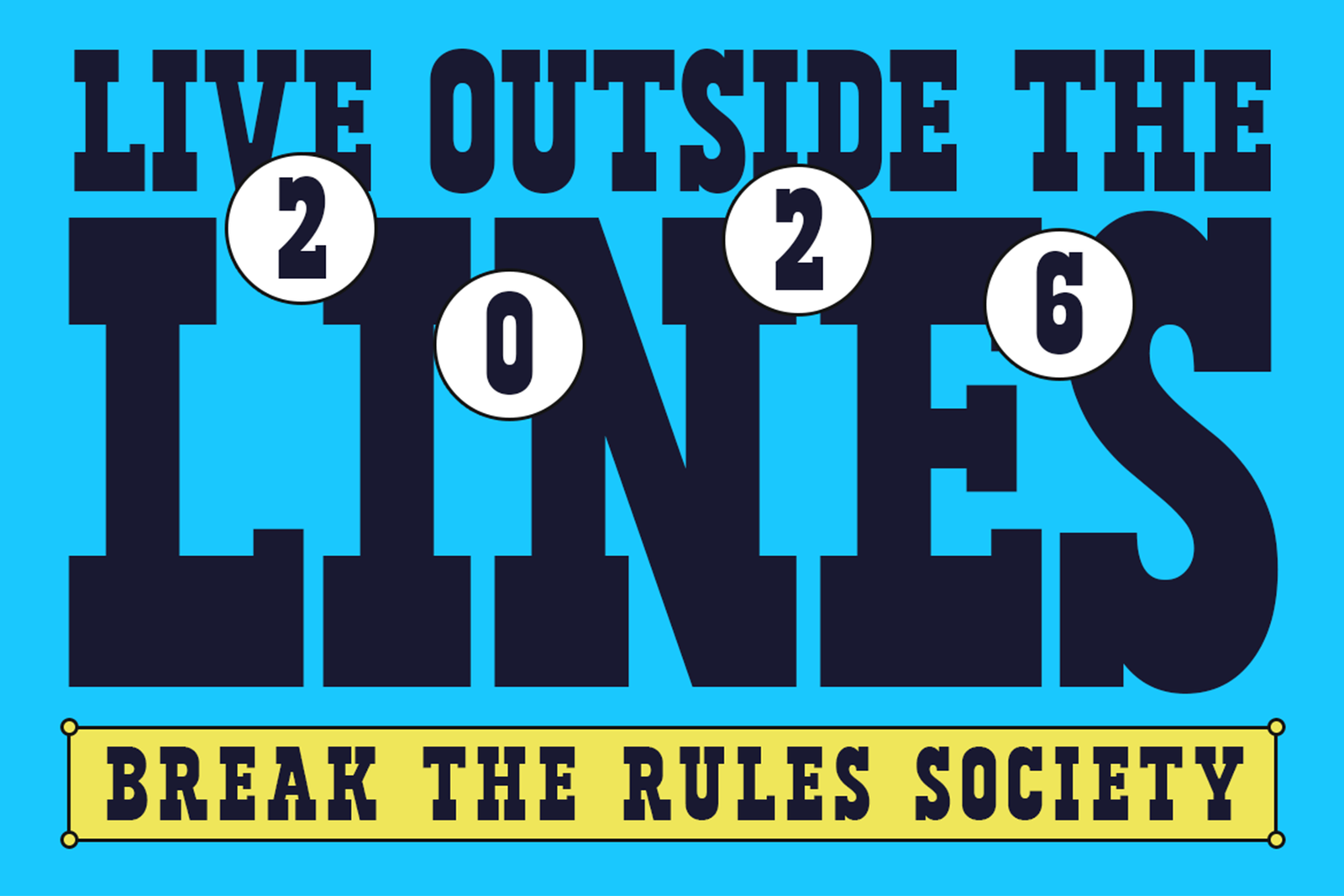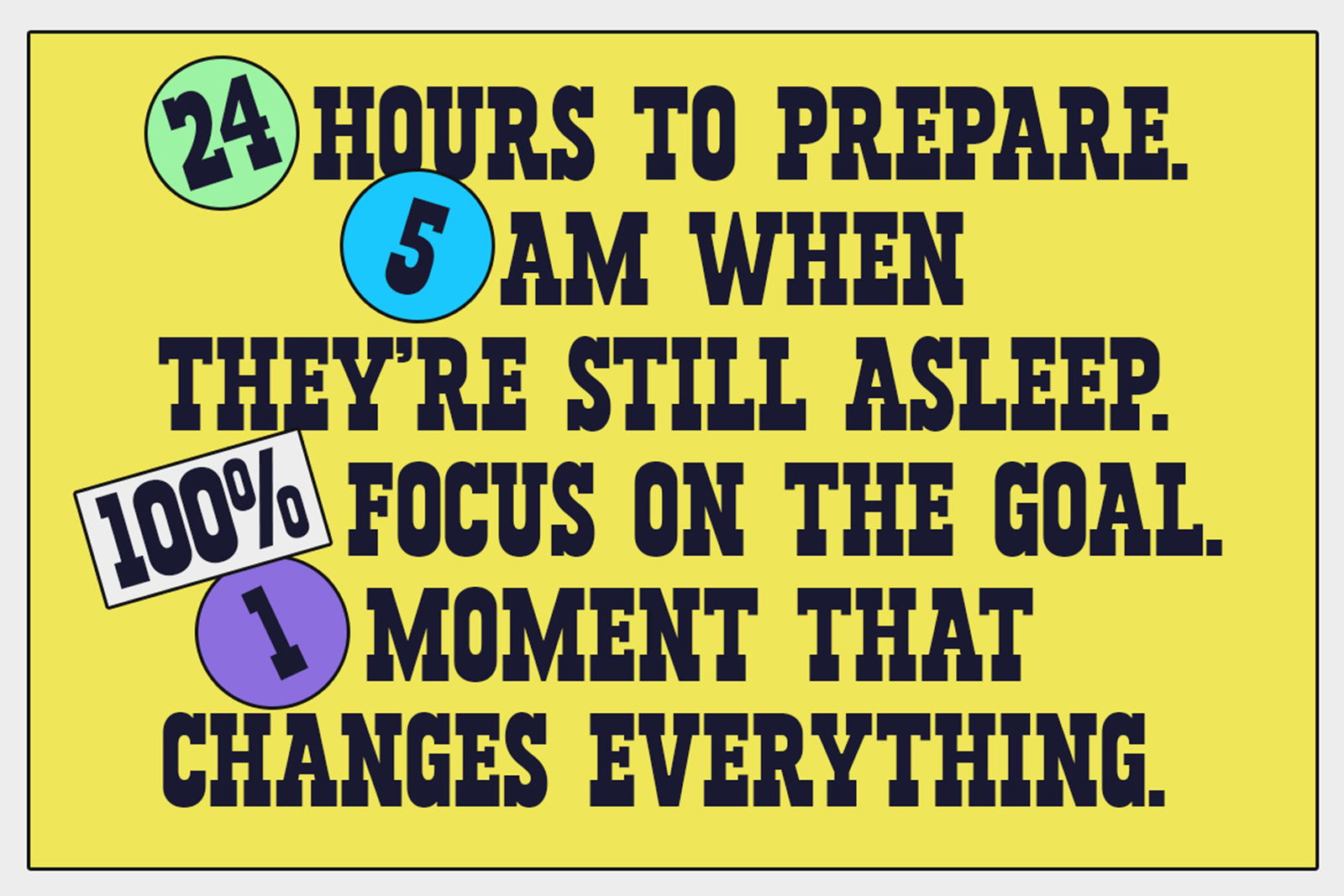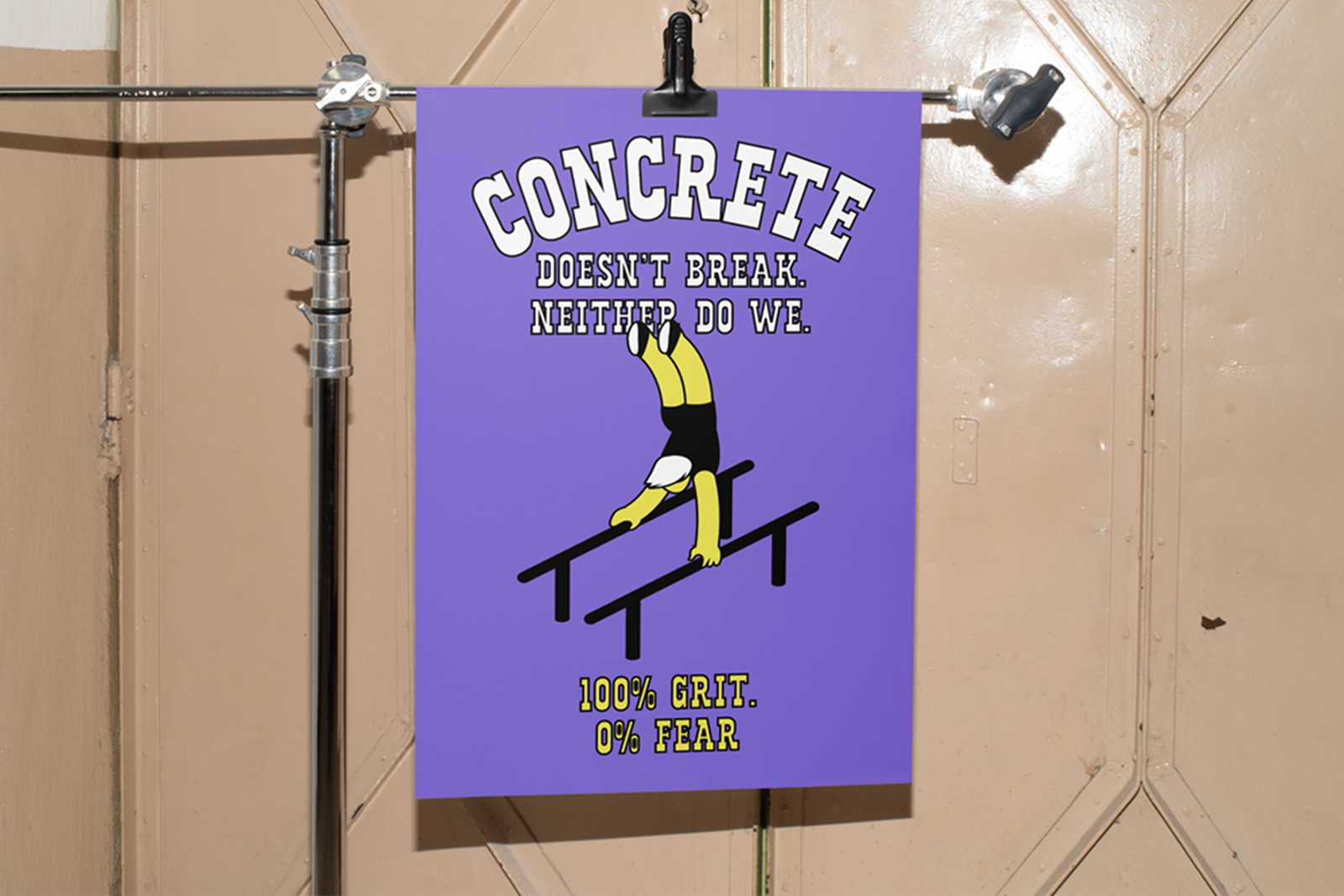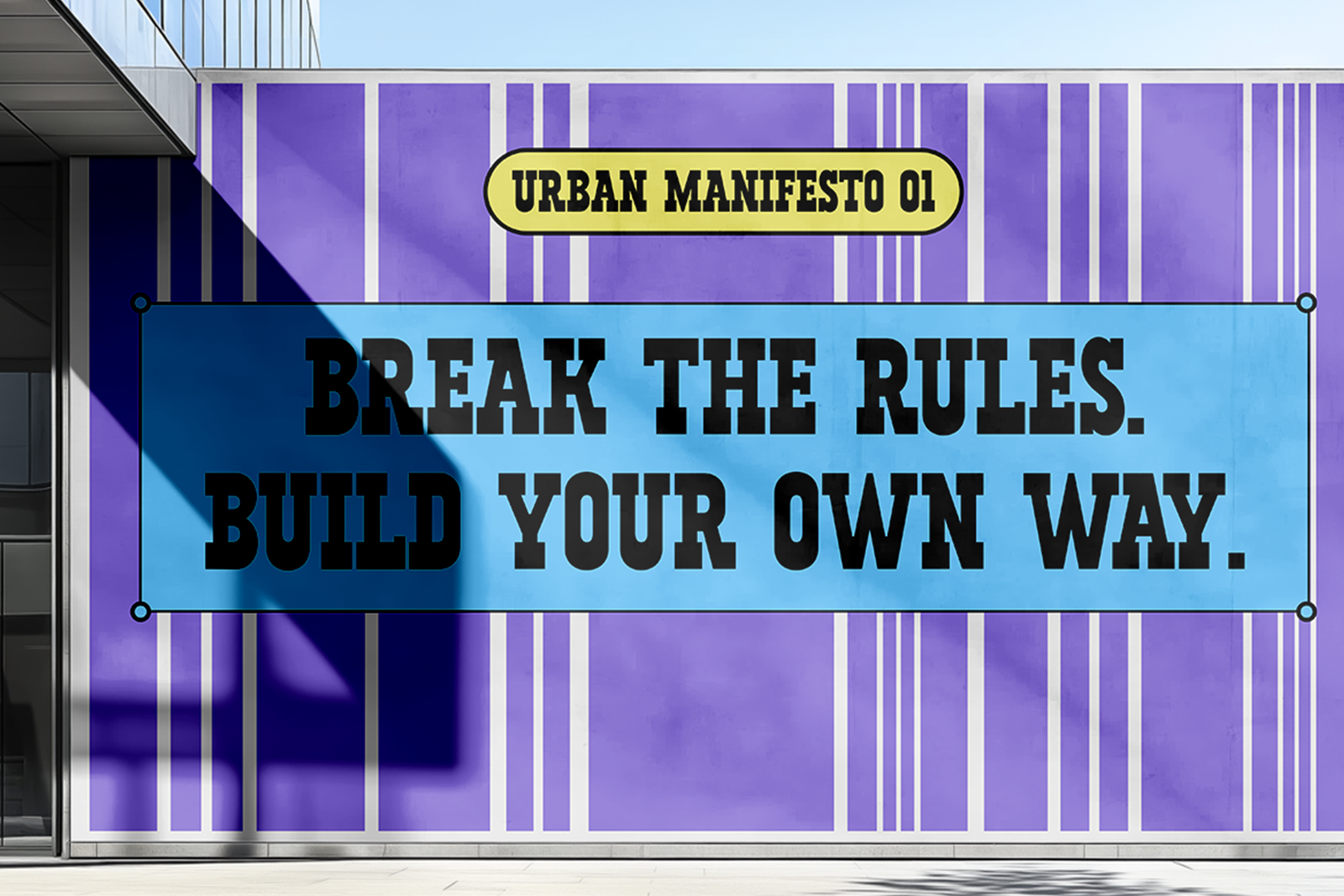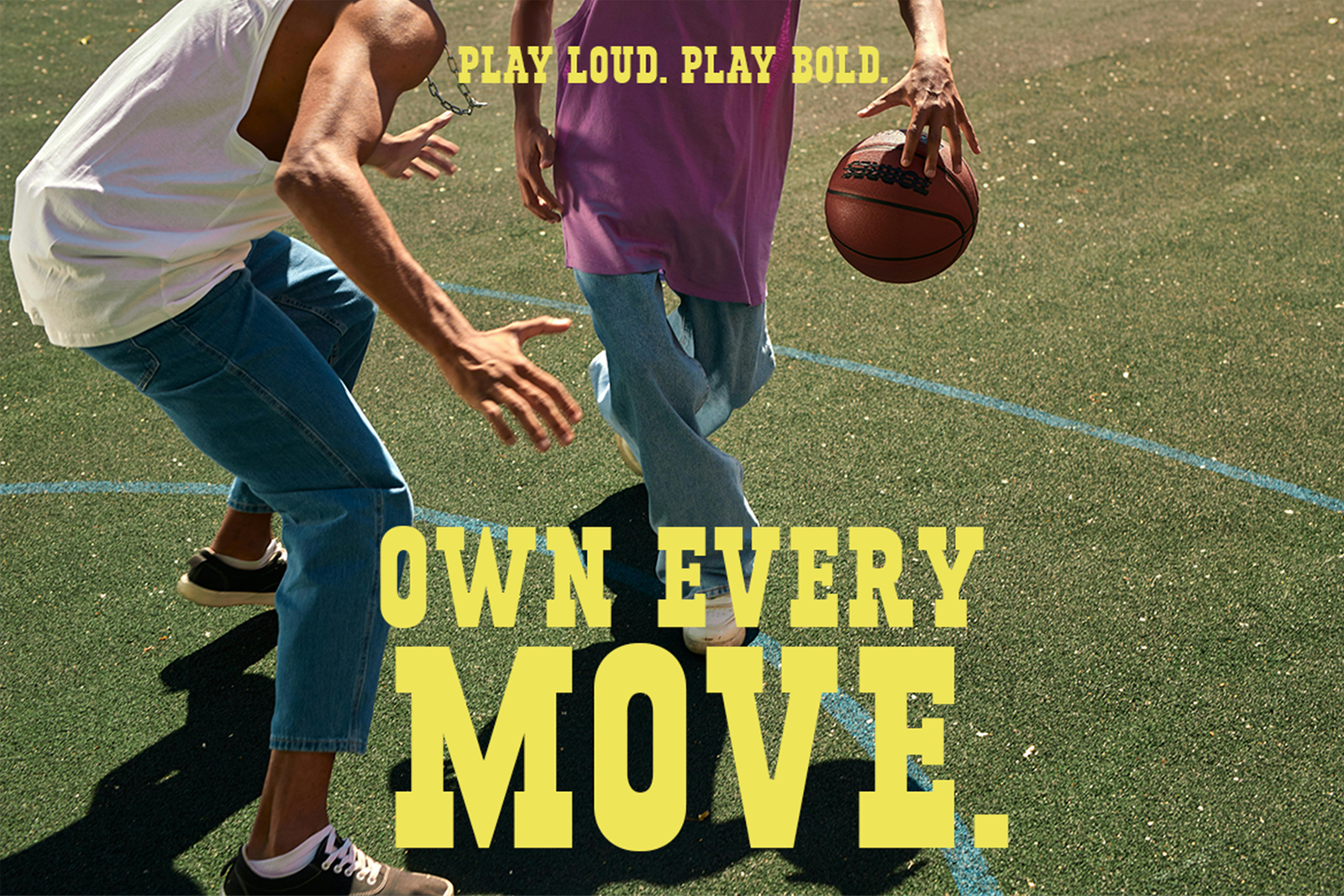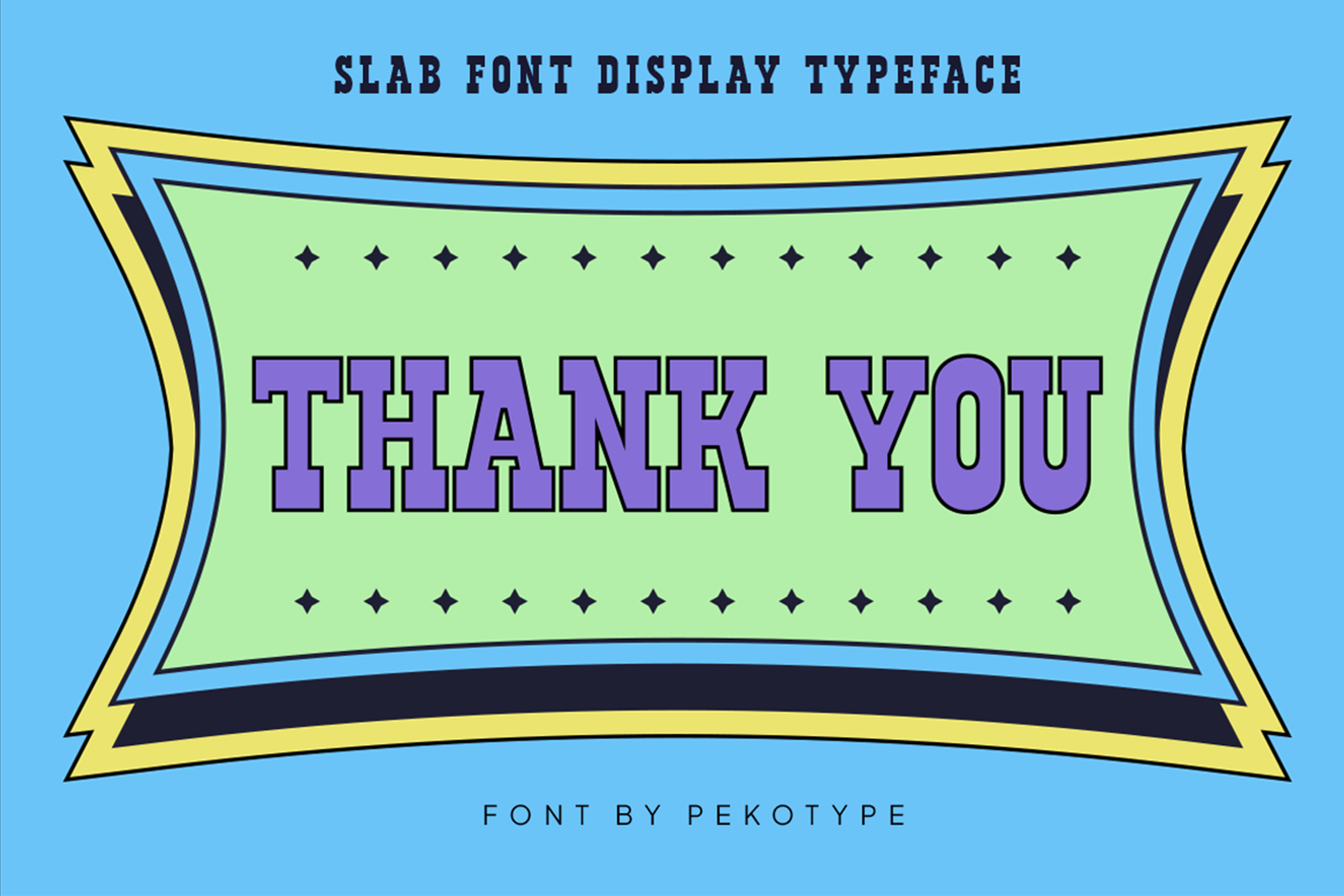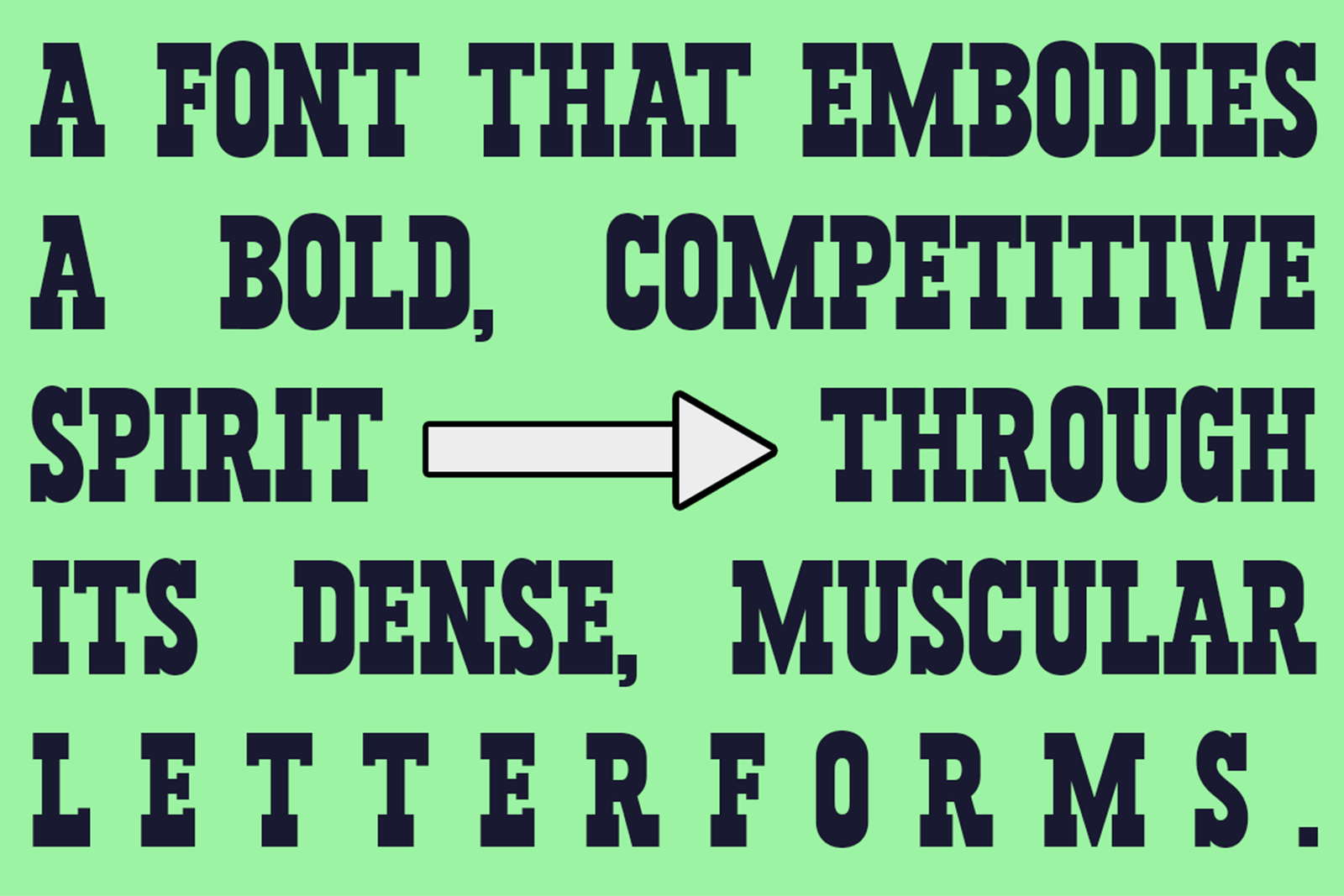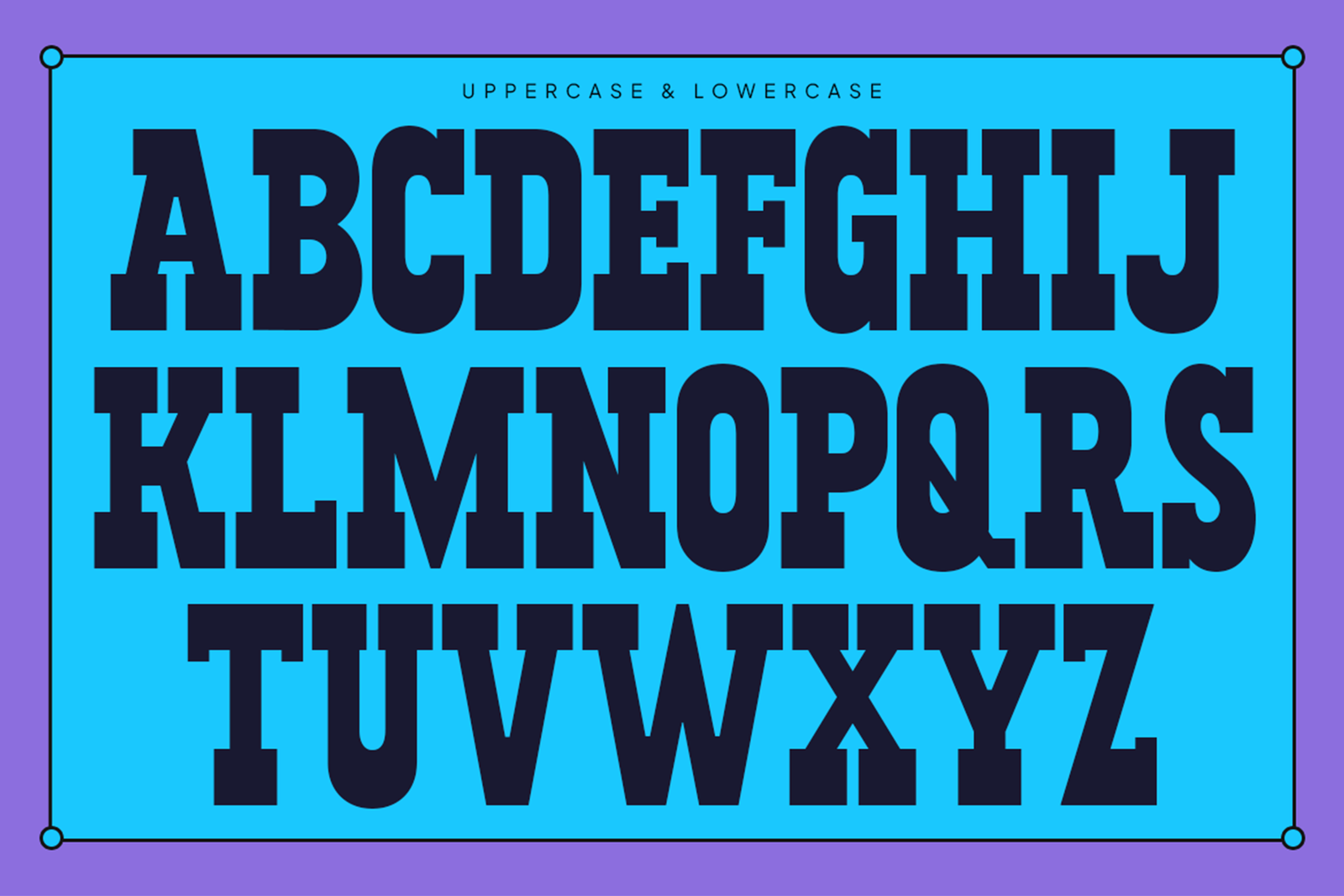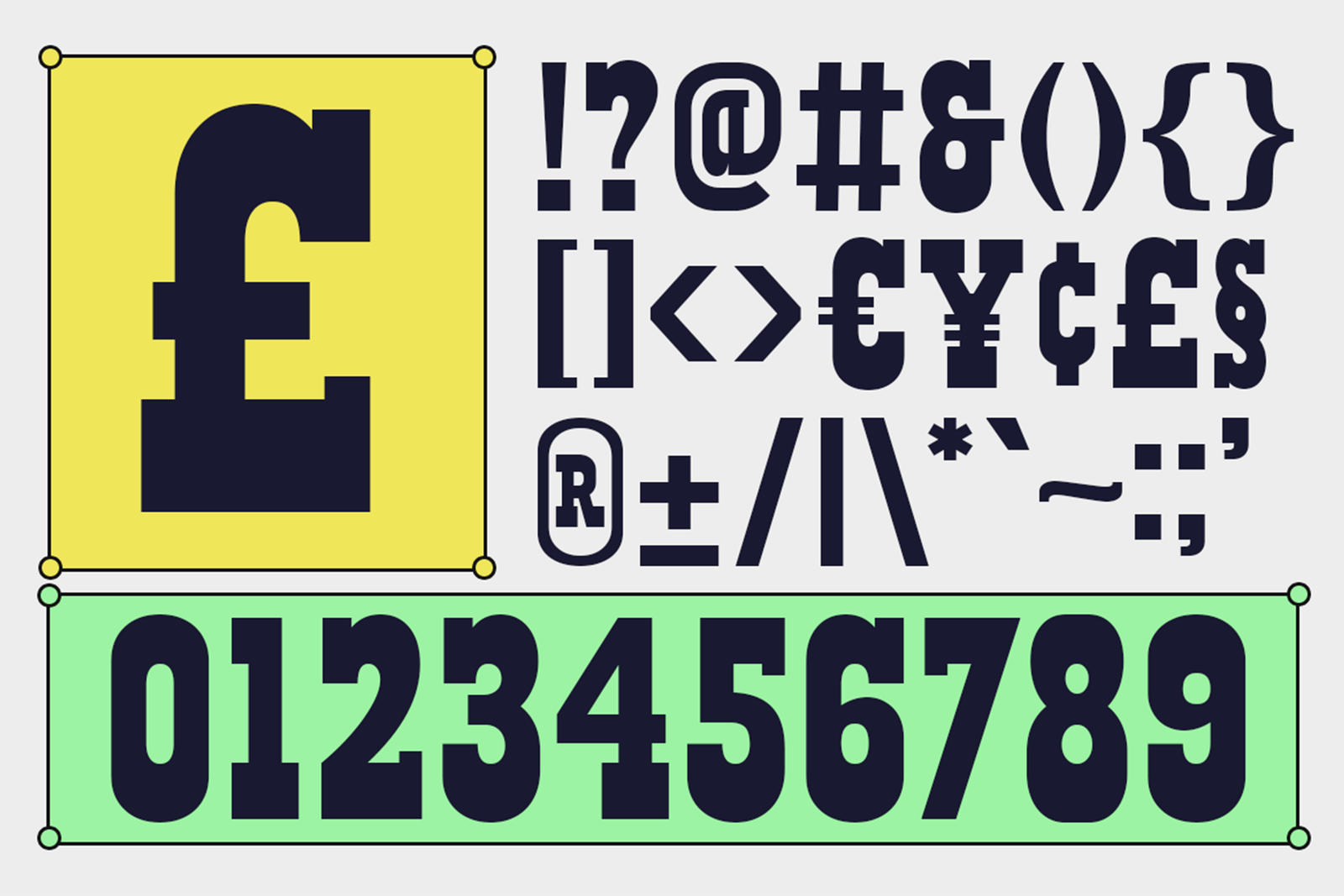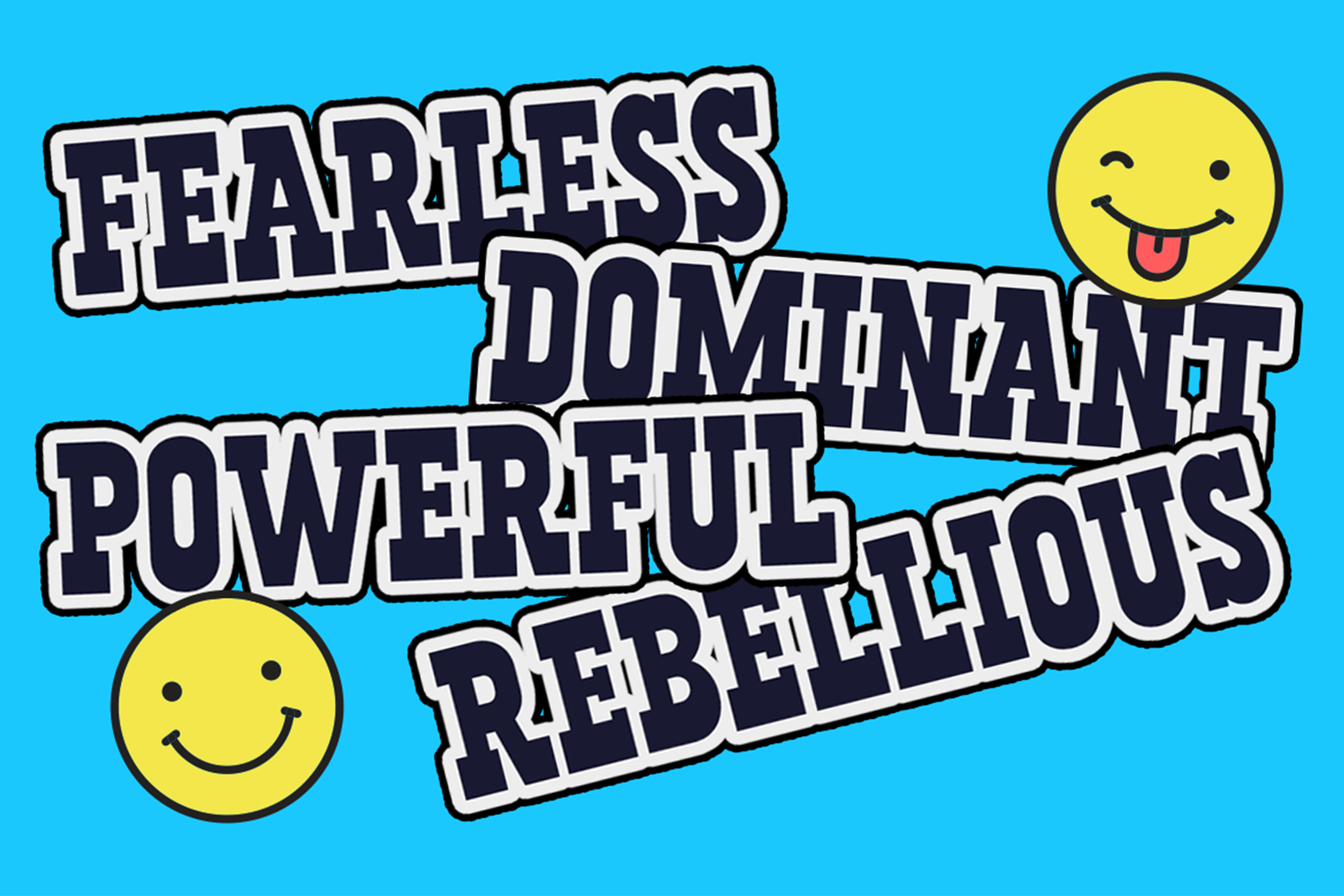
TENKA Font is a bold slab serif display typeface with a strong and sporty style, perfect for branding, logos, posters, merchandise, and modern designs.
TENKA Font is a bold slab serif display font designed to bring a strong, powerful, and confident personality to your designs. Inspired by competitive spirit and vintage athletic aesthetics, this font features thick letterforms, sturdy shapes, and a muscular structure that creates a bold visual impact. Its distinctive character makes TENKA the perfect choice for designs that need a strong presence and an energetic style.
This versatile font works perfectly for sports branding, posters, logos, headlines, merchandise, packaging, and advertising designs. It is also a great fit for streetwear brands, gaming visuals, event graphics, social media content, and modern promotional materials. Whether you are creating a bold team identity, championship poster, product label, or eye-catching campaign, TENKA helps your design stand out with a powerful and memorable appearance. With uppercase letters, numbers, symbols, punctuation, and multilingual support, this font provides flexibility for various creative projects. Choose TENKA to add a bold, sporty, and rebellious touch to your next design project.
Features:
• All Caps
• Number, Symbol, & Punctuation
• Multilingual